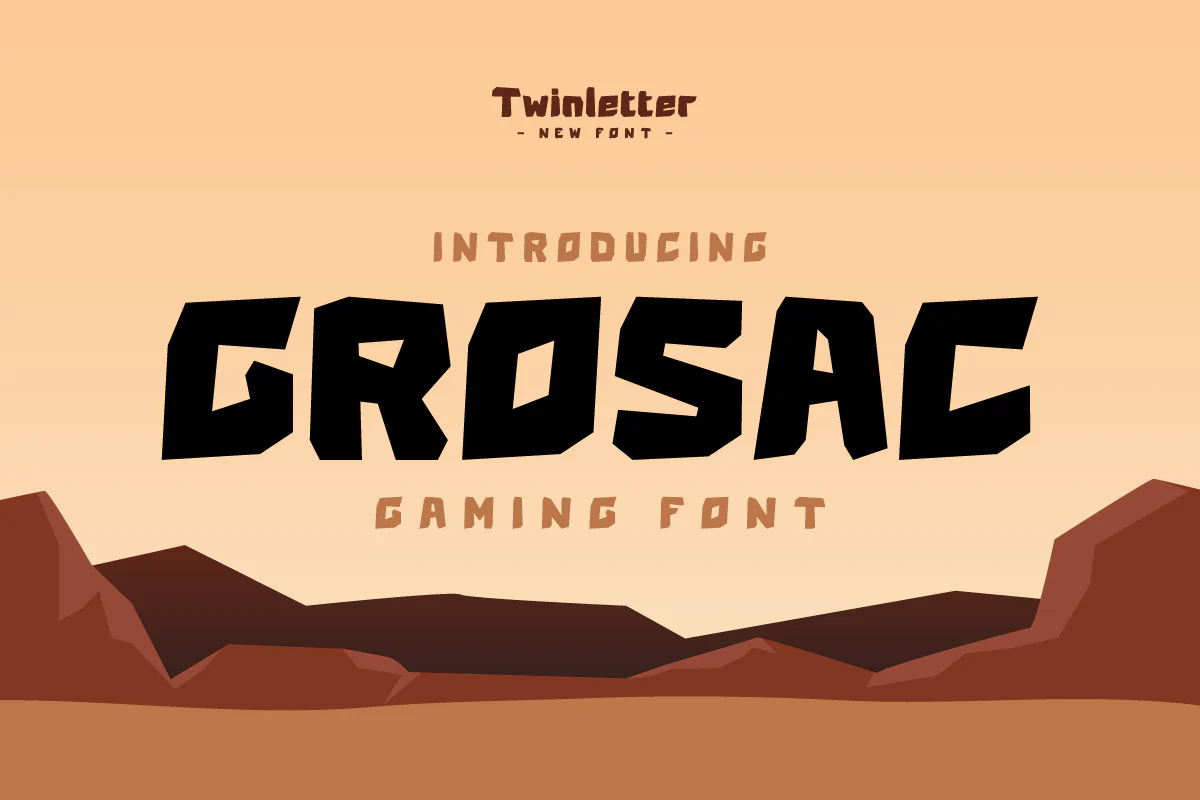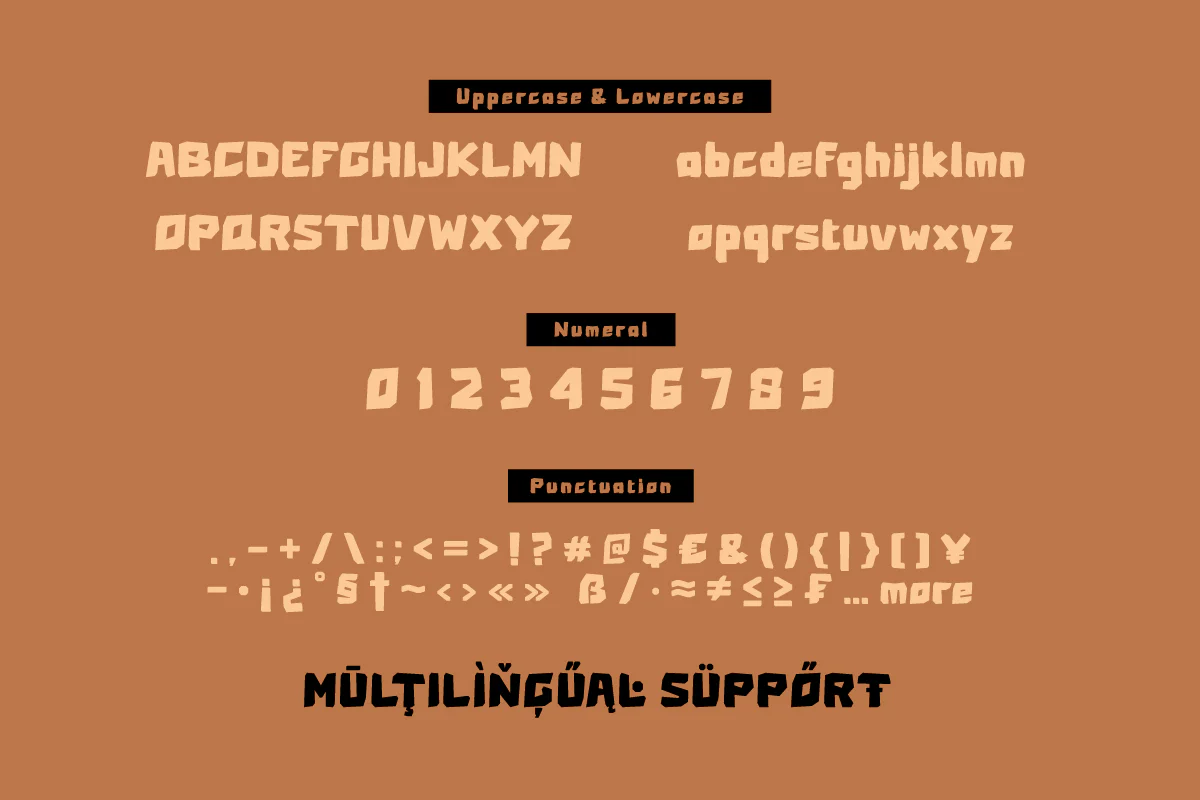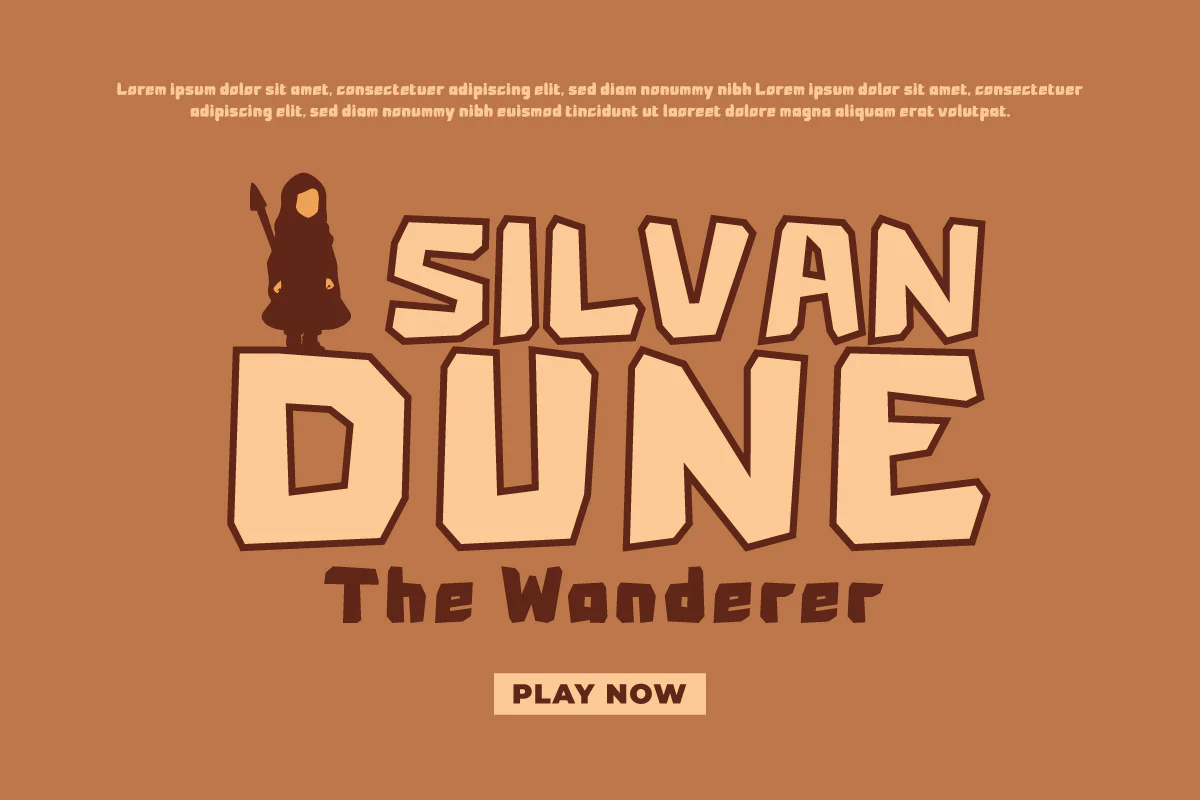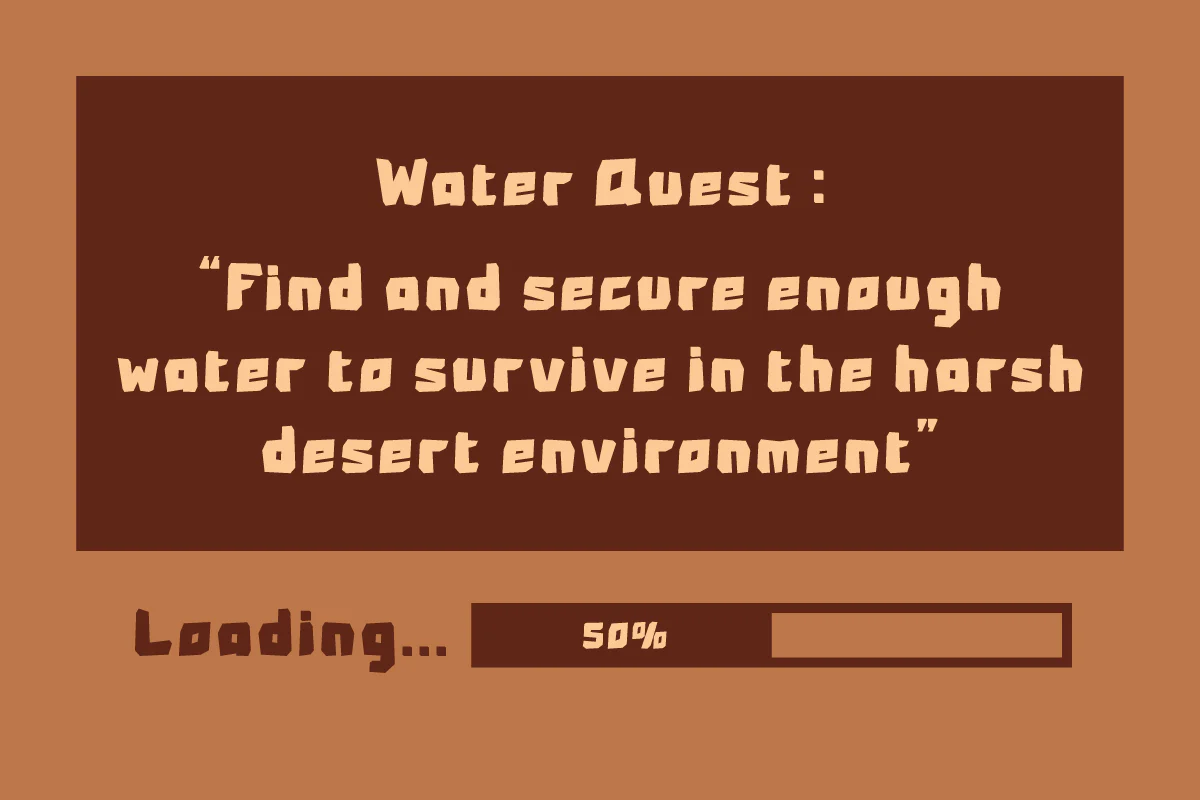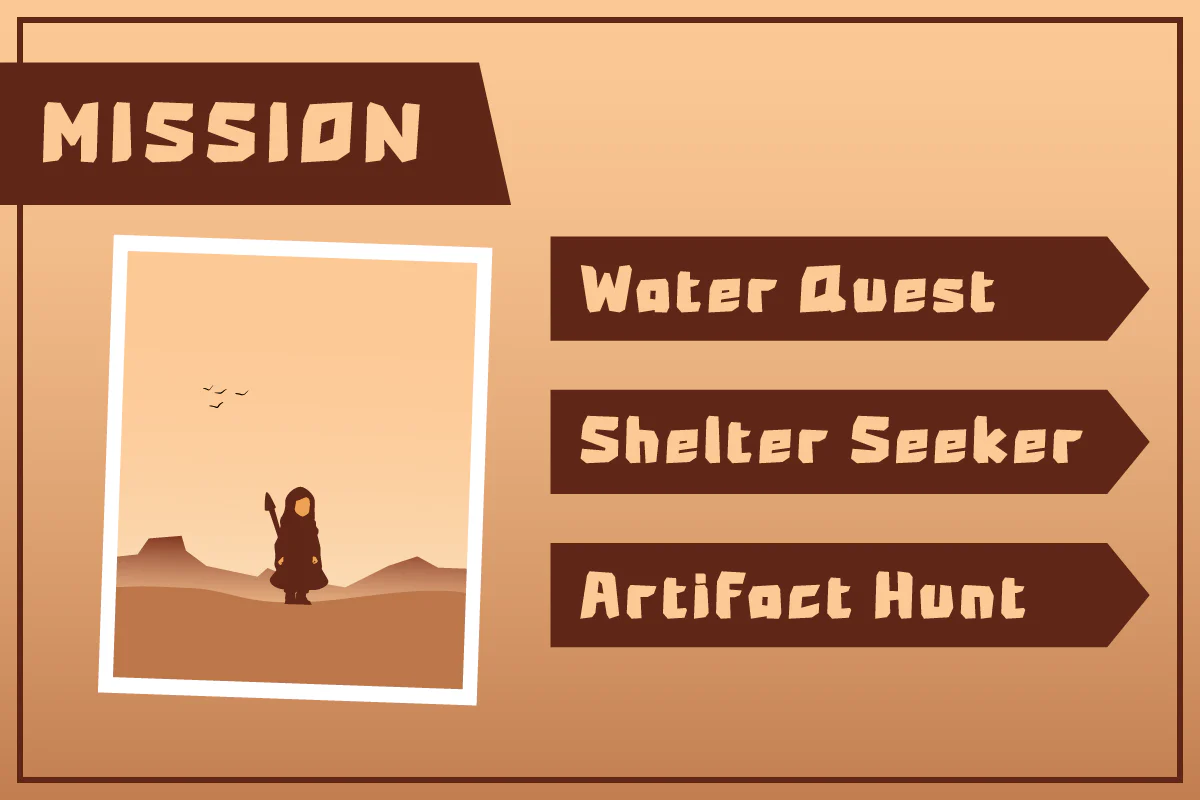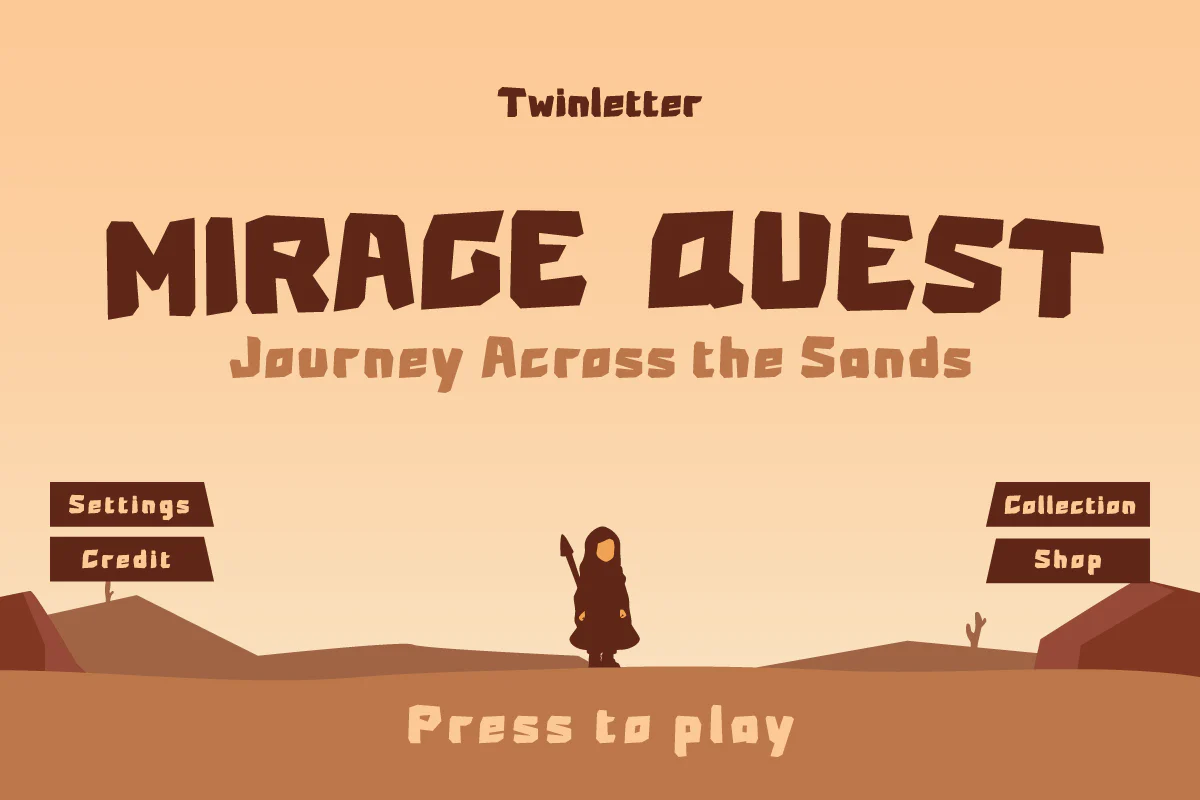
Grosac - Game Display Font
Immerse yourself in the digital adventure with Grosac, a captivating game display font that transports you to the heart of gaming excitement. Each letter pulsates with energy, evoking the thrill of virtual realms and epic quests. Perfect for game interfaces, logos, and digital designs, Grosac brings an element of dynamism and adventure to every pixel.